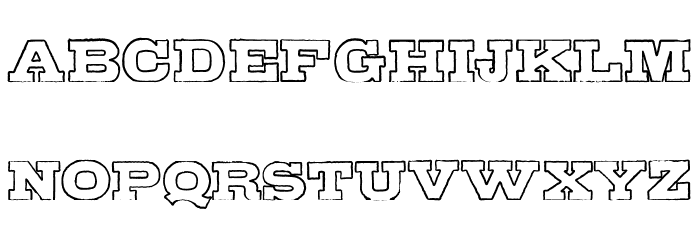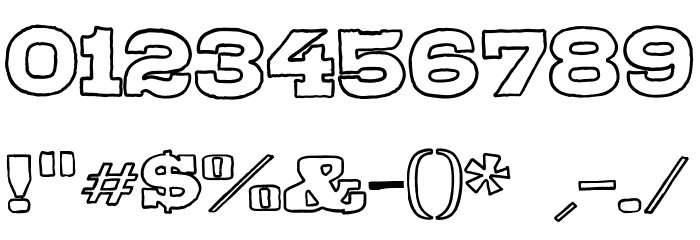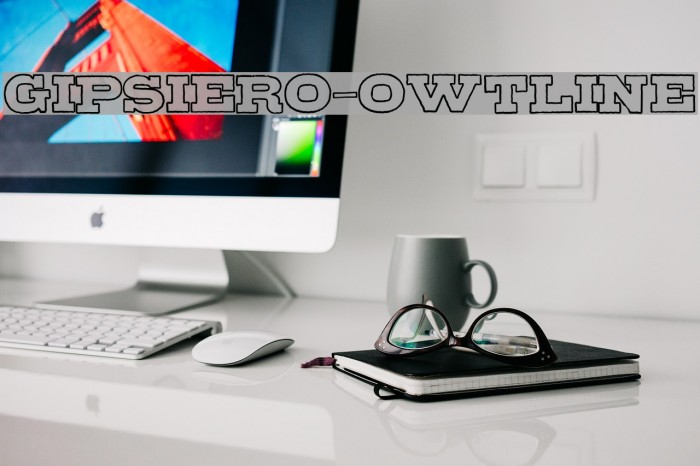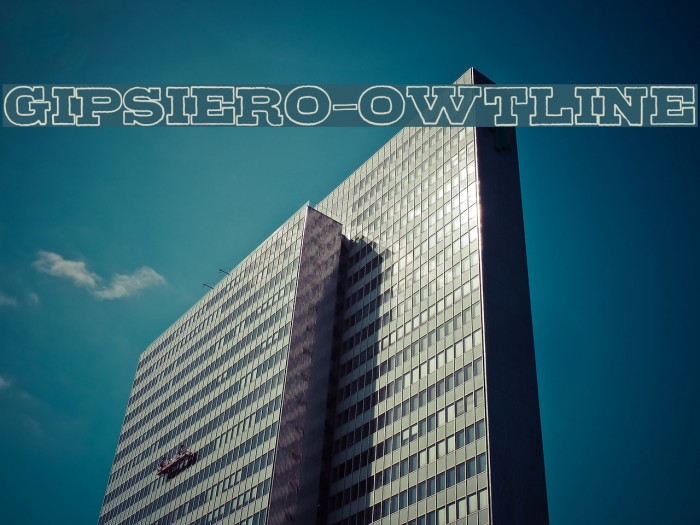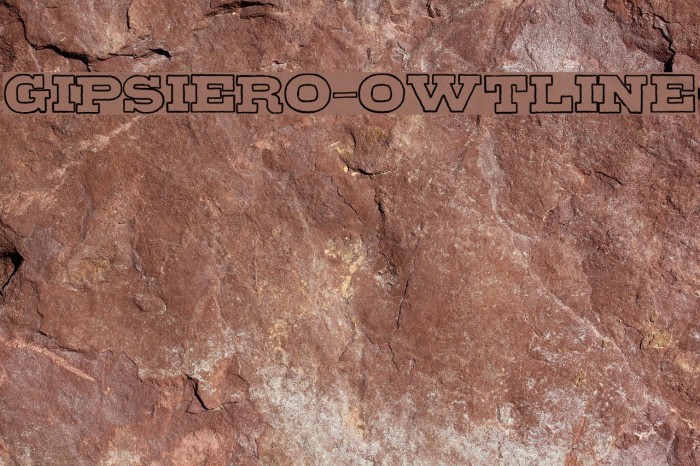
Gipsiero-Owtline Font
This font features a bold, outlined style with a strong presence. Each character is defined by a thick outer line, creating a hollow effect that gives it a distinctive, eye-catching appearance. The uppercase letters are uniform in height, with a consistent width that maintains readability. The numbers follow the same design principles, ensuring a cohesive look across all characters. Special characters are also included, matching the bold outline style. This font is ideal for projects that require a striking, modern aesthetic.
A bold, outlined font with a modern, eye-catching design.
- Proposed Projects: Ideal for headlines, posters, logos, and any design that requires a bold statement.